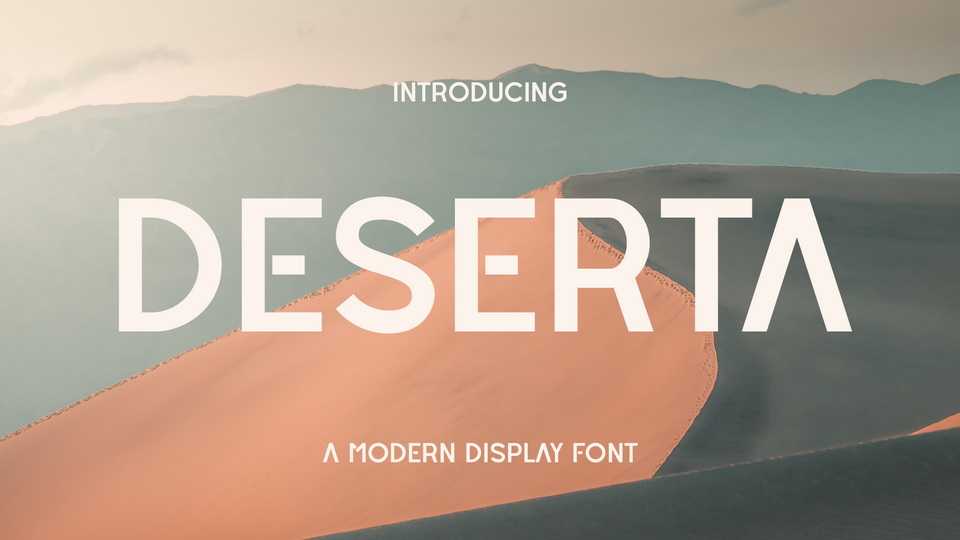
Download Deserta font, a modern all caps typeface suitable for your creative projects. With its clean and minimal style, Deserta font is perfect for logo and branding, posters, headlines, album artworks.
Designer: Fathul Irfaan